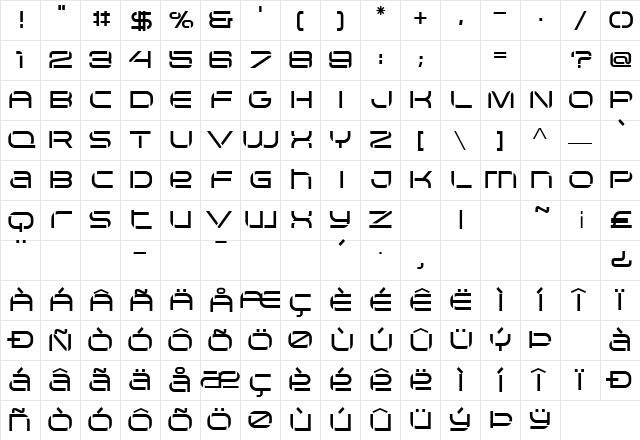
Arkitech Stencil Medium Free Font
Arkitech Stencil Medium
Foundry: Ivan Filipov
Designer: Ivan Filipov
Design Context for Arkitech Stencil
Arkitech Stencil has a distinctly futuristic character, with geometric precision and clean angles that feel at home in technology, gaming, and sci-fi contexts.
Who designed the Arkitech Stencil Medium font?